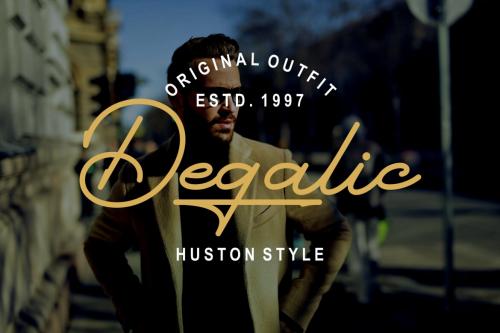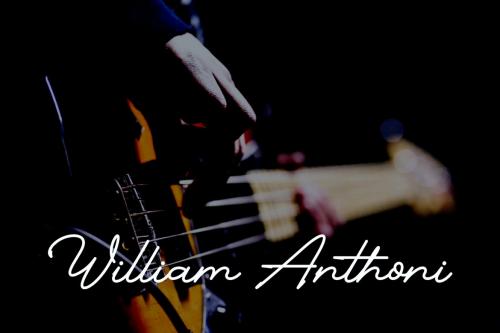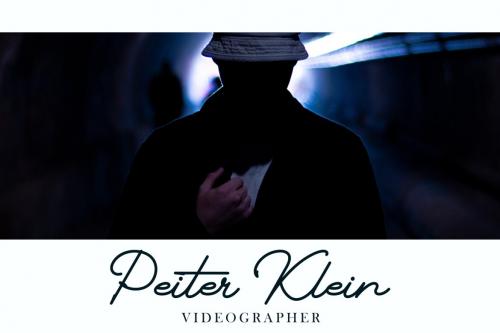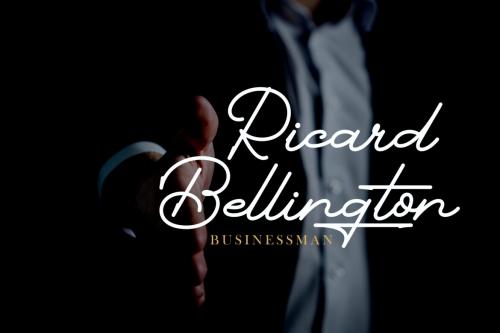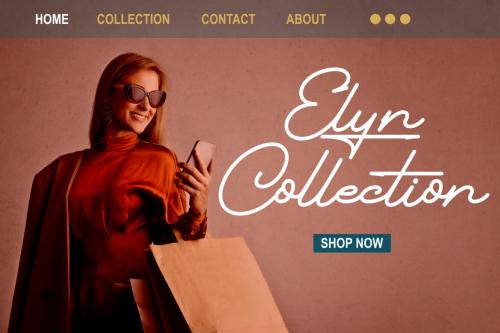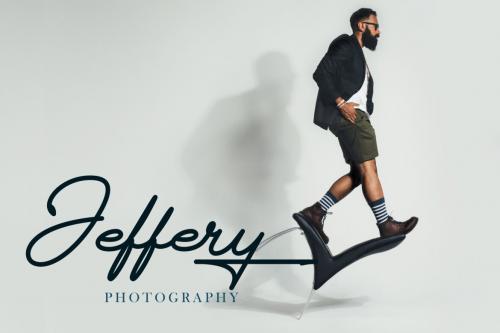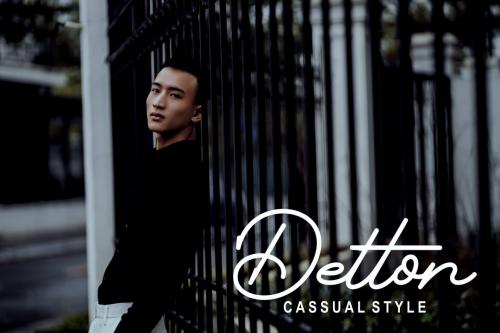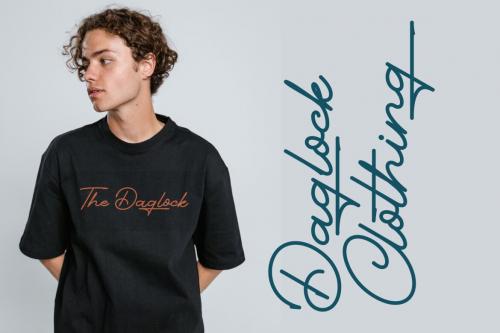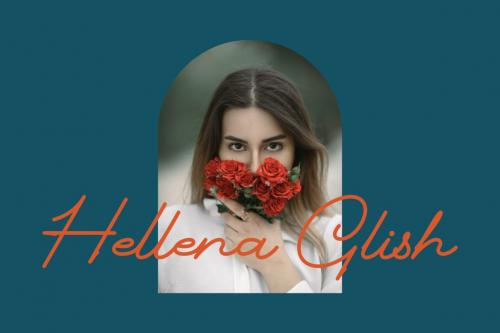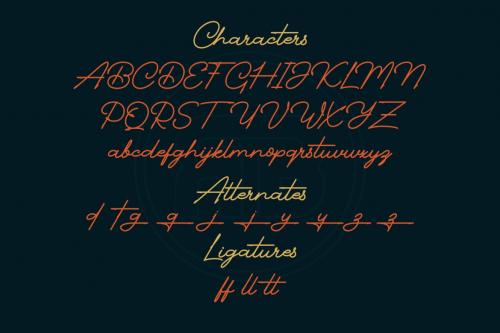
Introducing Pethafis, a bold & festive monoline script font that's suitable for branding, product packaging, social media quotes and graphics, holiday cards and more.
Give every word in each project it's own personality with the ability to choose between a variety of characters and create stunning type.